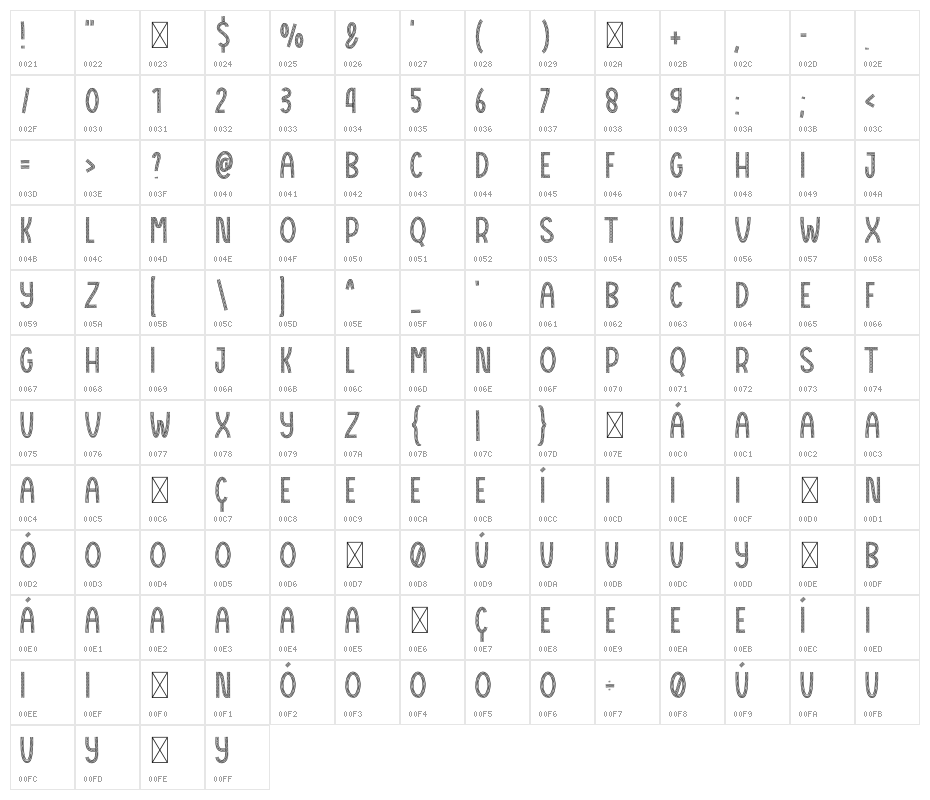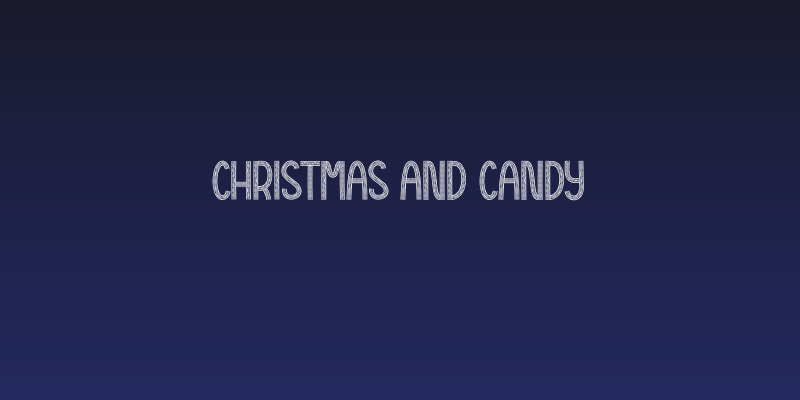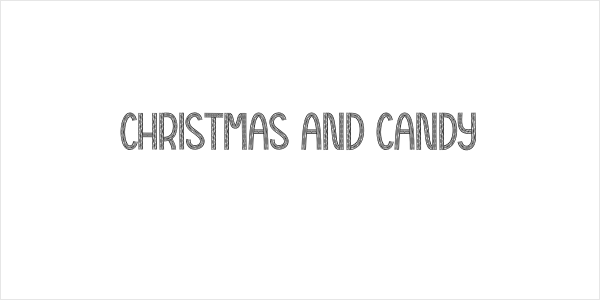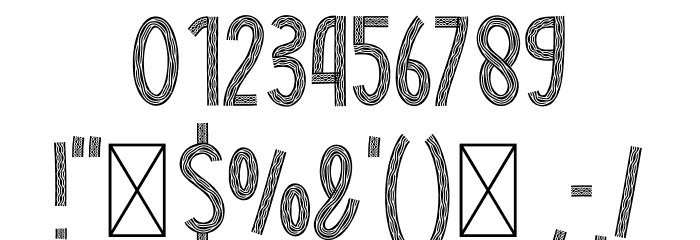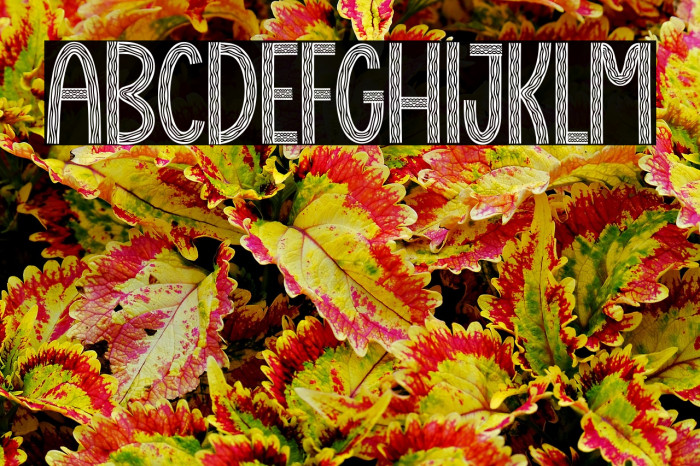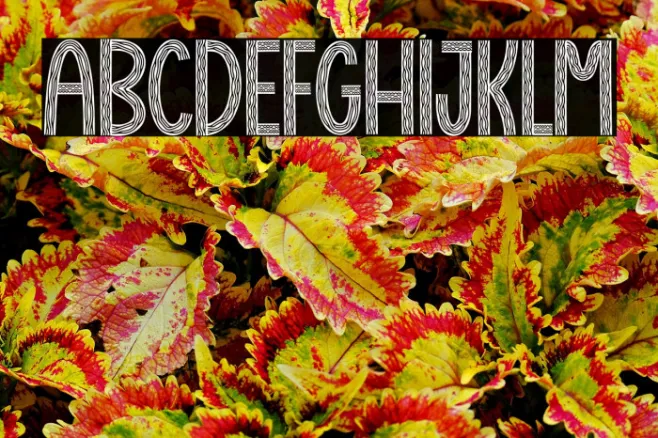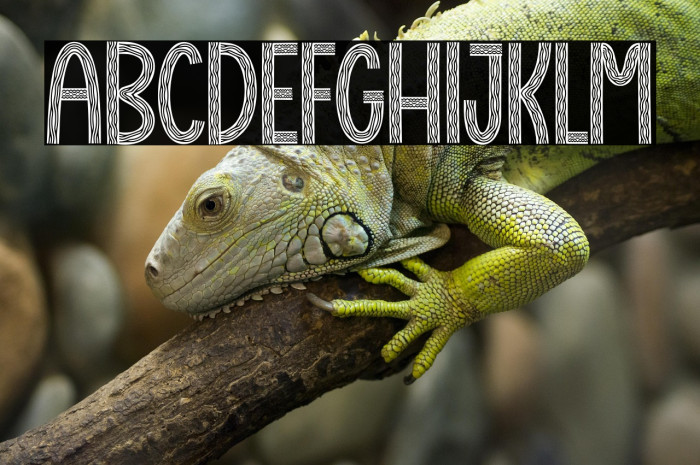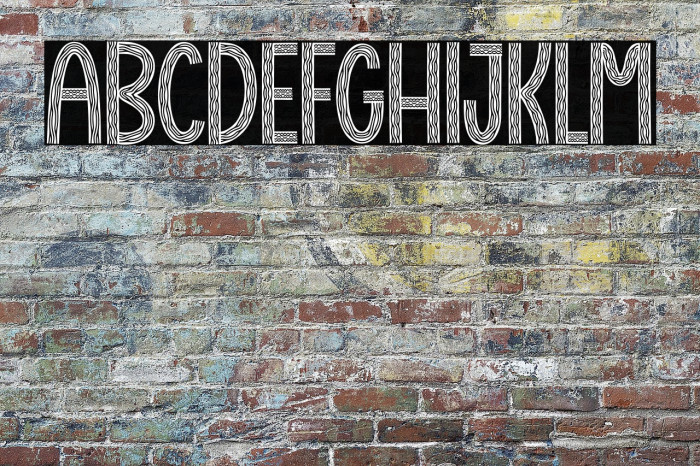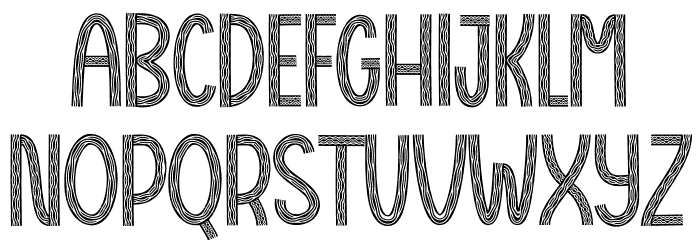
Christmas And Candy Font
Christmas And Candy Description
This font features a playful and whimsical design, characterized by its unique candy cane-like stripes running through each character. The letters are bold and have a hand-drawn quality, giving them a festive and cheerful appearance. The uppercase and lowercase letters maintain a consistent style, with rounded edges and a slightly condensed form. The numerals and special characters follow the same decorative pattern, making the font cohesive and visually appealing. This font is perfect for holiday-themed projects, adding a touch of fun and creativity to any design.
| Proposed Projects | Ideal for holiday cards, festive banners, children's party invitations, and playful branding. |